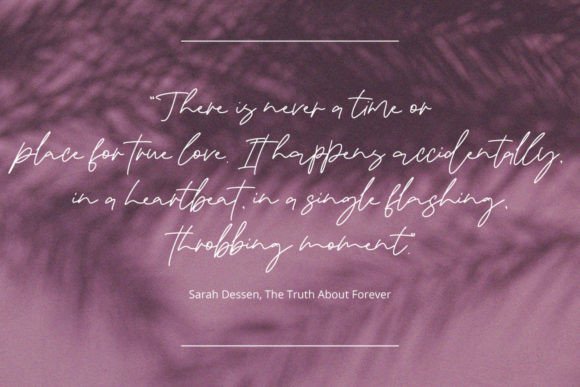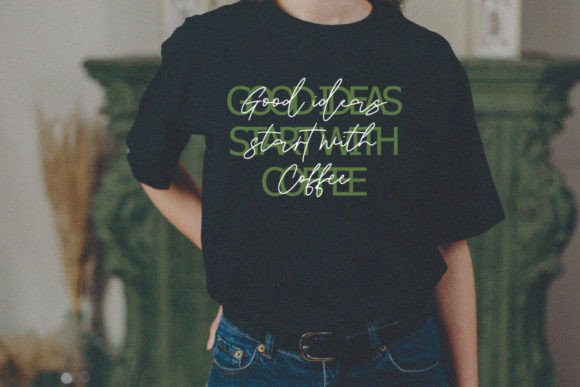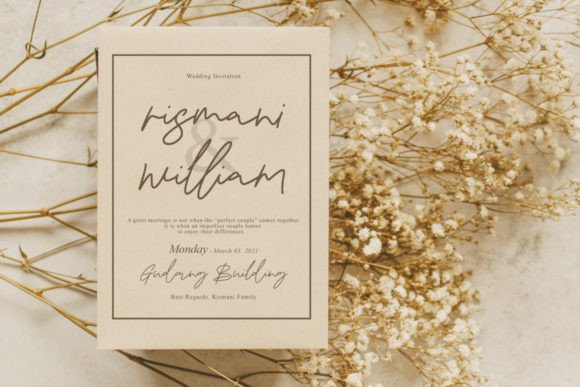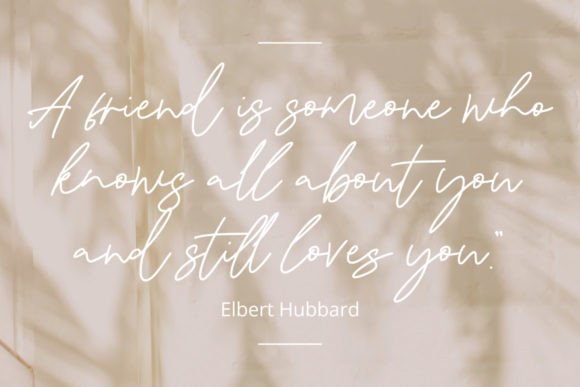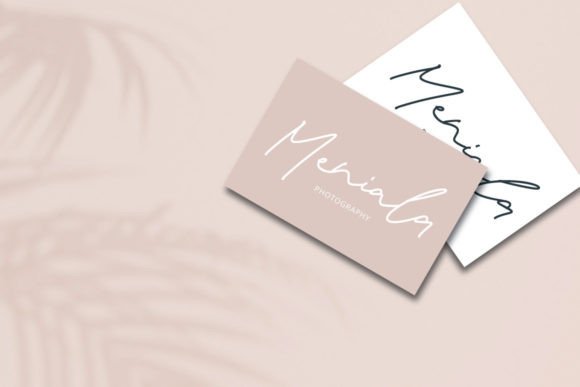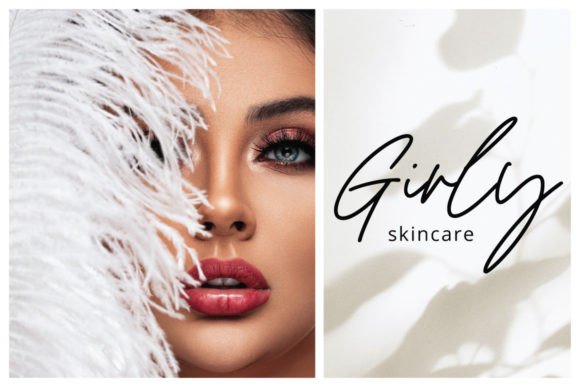
Bristian Signature Font: Elevate Your Brand with Elegance and Flair
In the world of typography, a signature font can make all the difference in creating a lasting impression. For designers and crafters looking to add a touch of sophistication and personality to their projects, the Bristian Signature Font is an exceptional choice. With its unique and stylish letterforms, Bristian Signature is perfect for creating eye-catching logos and branding that stand out from the crowd.
The Characteristics of Bristian Signature Font
Bristian Signature Font boasts flowing curves and elegant flourishes that add a touch of luxury and refinement to any design. Its distinctive letterforms are carefully crafted to convey a sense of elegance and poise, making it an ideal choice for fashion, beauty, and lifestyle projects. Whether you’re creating a logo, branding materials, or marketing collateral, Bristian Signature Font is sure to make a lasting impression.
Why Choose Bristian Signature Font?
So, what sets Bristian Signature Font apart from other fonts? Here are just a few reasons why designers and crafters love working with this stunning font:
- Unique and Stylish Letterforms: Bristian Signature Font features distinctive letterforms that are both stylish and memorable.
- Elegant Flourishes: The font’s elegant flourishes add a touch of sophistication and refinement to any design.
- Flowing Curves: The font’s flowing curves create a sense of movement and fluidity, making it perfect for creating dynamic and eye-catching designs.
- Versatile: Bristian Signature Font is versatile and can be used for a wide range of projects, from logos and branding to marketing collateral and packaging.
Perfect for Fashion, Beauty, and Lifestyle Projects
Bristian Signature Font is particularly well-suited for fashion, beauty, and lifestyle projects, where style and sophistication are paramount. Whether you’re creating a logo for a fashion brand, a brochure for a beauty company, or a social media graphic for a lifestyle brand, Bristian Signature Font is sure to elevate your design and leave a lasting impression.
Tips for Using Bristian Signature Font
Here are a few tips for getting the most out of Bristian Signature Font:
- Use it as a Headline Font: Bristian Signature Font is perfect for use as a headline font, where its elegant flourishes and flowing curves can really make an impact.
- Pair it with a Simple Font: For body text, pair Bristian Signature Font with a simple, clean font to create a striking contrast.
- Experiment with Colors: Bristian Signature Font looks stunning in a range of colors, from bold and bright to soft and pastel.
| Font Name | Bristian Signature Font |
| Author | Tebaltipis.std |
In conclusion, Bristian Signature Font is a stunning and versatile font that’s perfect for designers and crafters looking to add a touch of elegance and flair to their projects. With its unique and stylish letterforms, elegant flourishes, and flowing curves, Bristian Signature Font is sure to elevate your brand and leave a lasting impression. So why not give it a try and see the difference it can make?